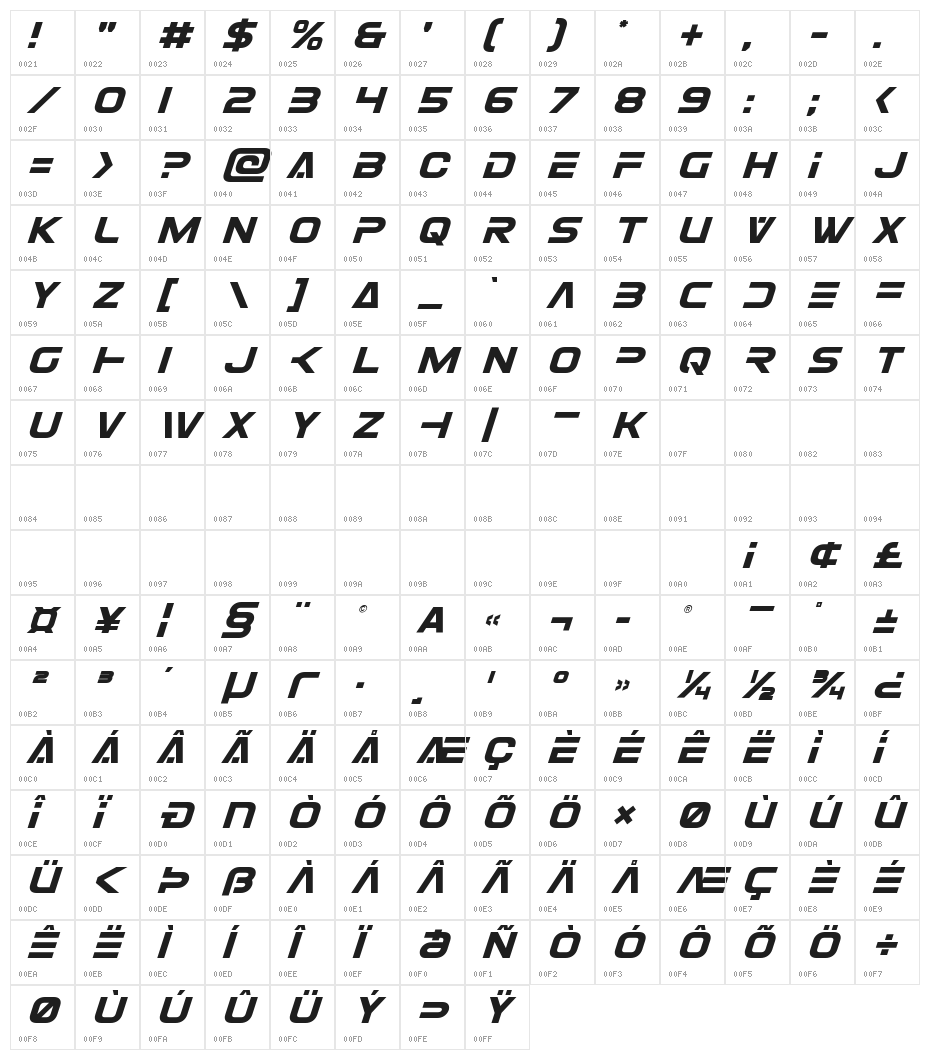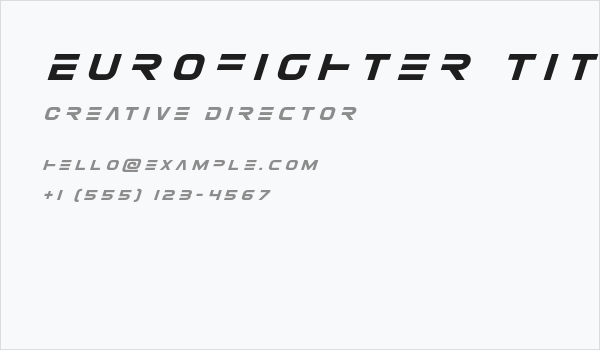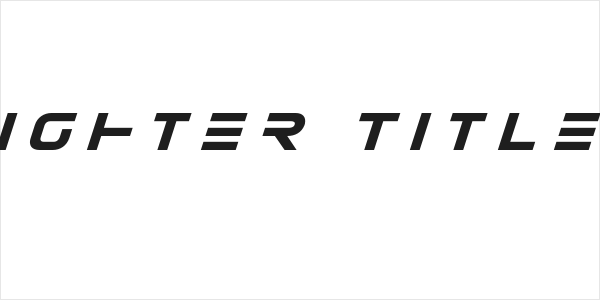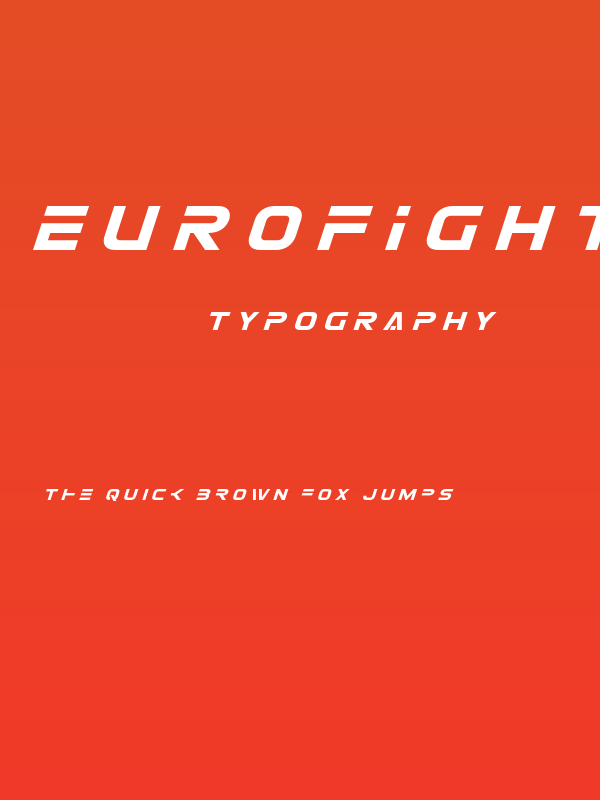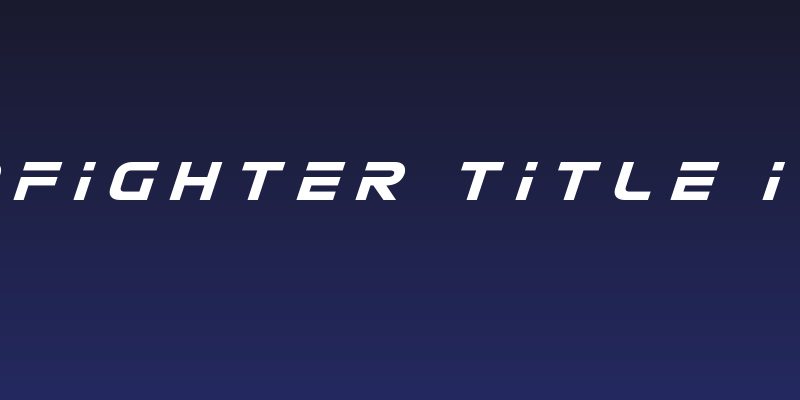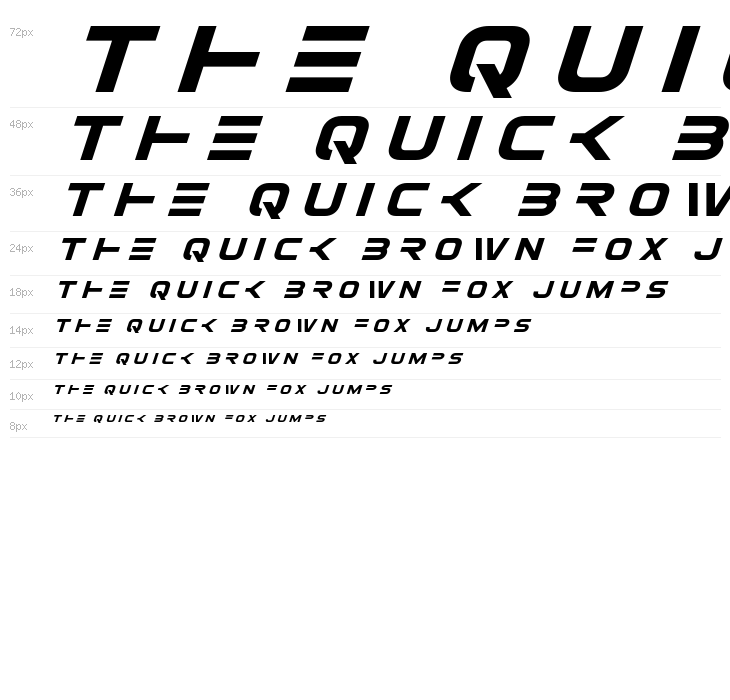
Eurofighter Title Italic Font
Eurofighter Title Italic Description
This font features a sleek, italicized design with a futuristic and aerodynamic feel. The characters are slightly slanted, giving a sense of motion and speed. The strokes are bold and consistent, with a uniform thickness that maintains clarity and readability. The angular cuts and sharp edges add a modern and dynamic touch, making it suitable for projects that require a contemporary and energetic look. The numbers and special characters follow the same design principles, ensuring a cohesive appearance across all elements.
| Proposed Projects | Ideal for technology branding, automotive designs, sports team logos, and modern advertising campaigns. |